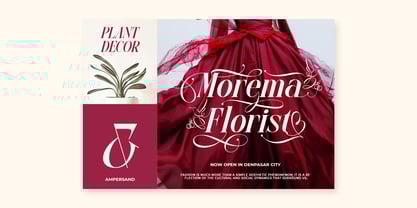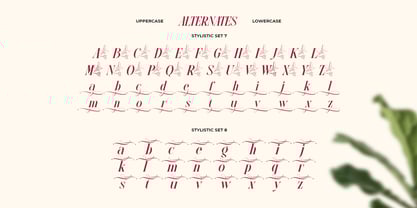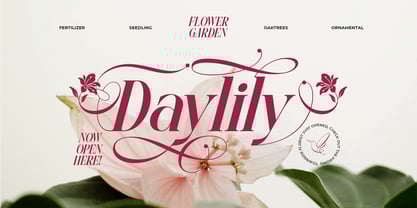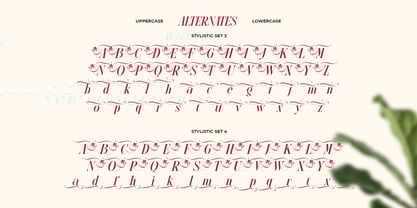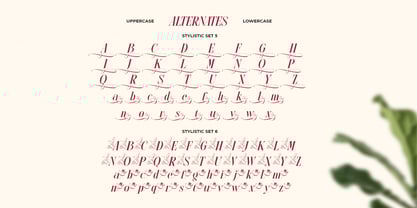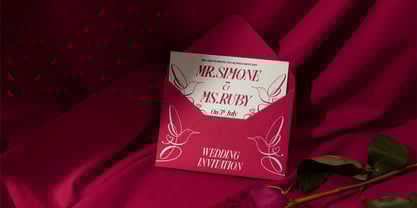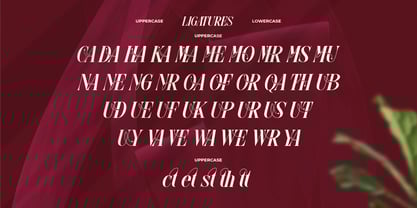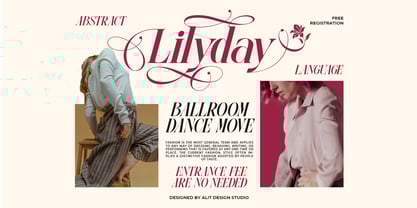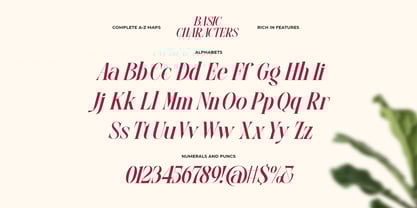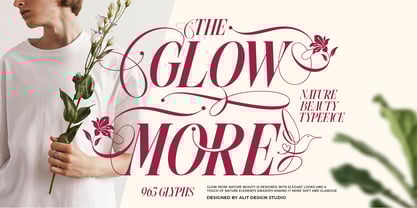
Glow More
by Alit Design
The Glow More Font Family was designed by Alit Suarnegara and published by Alit Design. Glow More contains 1 styles. More about this family
Glow More - An Elegant Serif with a Touch of Nature's Romance
Introducing Glow More, a stunning slanted serif font that dances with elegance and whispers tales of romance. Inspired by the delicate beauty of nature, Glow More brings a sophisticated and organic touch to your designs. Its graceful slant and refined serifs create a timeless feel, perfect for projects that require a touch of class.
But the true magic lies within its enchanting details. Glow More is adorned with exquisite floral and bird swashes, allowing you to effortlessly weave nature's artistry into your typography. These decorative elements are perfect for adding a flourish to headlines, logos, or invitations, creating a truly bespoke and captivating look.
With a comprehensive set of 695 glyphs, this font provides full creative control, offering a vast array of alternates, ligatures, and symbols to explore. Whether you're crafting elegant wedding invitations, boutique branding, editorial layouts, or heartfelt quotes, Glow More provides the versatility you need to make your work shine.
Key Features:
• Elegant & Romantic Slanted Serif
• Beautifully crafted Floral & Bird Swashes
• An extensive collection of 695 Glyphs
• Perfect for branding, wedding stationery, logos, and high-end packaging.
Designers: Alit Suarnegara
Foundry: Alit Design